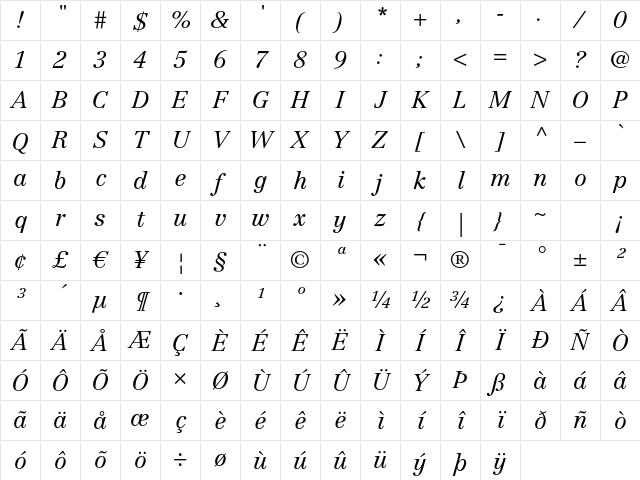
Complete Linotype Centennial LT 46 Light Italic glyph index. Displaying only characters natively supported by Linotype Centennial LT 46 Light Italic font.
Linotype Centennial LT is a composed and adaptable typeface that performs quietly and consistently across a wide range of design contexts. The slanted form adds forward momentum and visual energy. Its slender proportions lend an understated elegance to any composition.